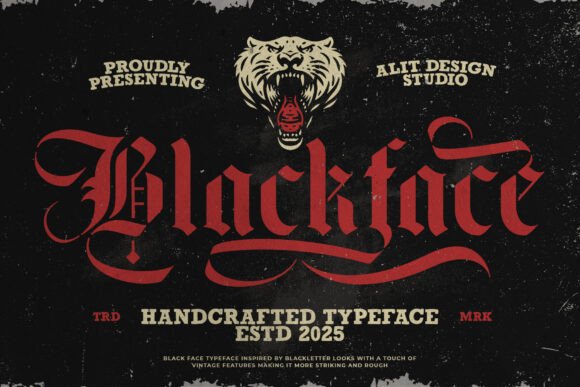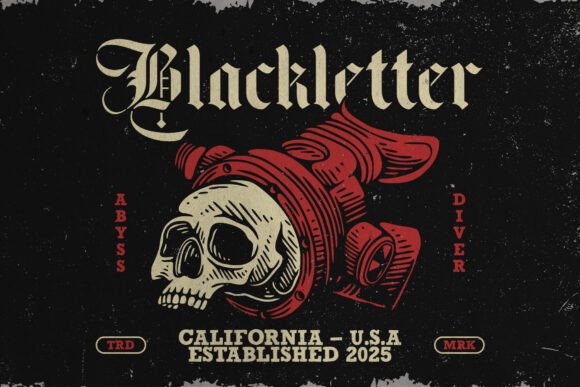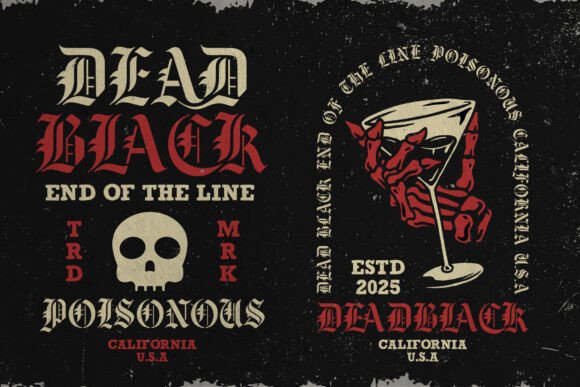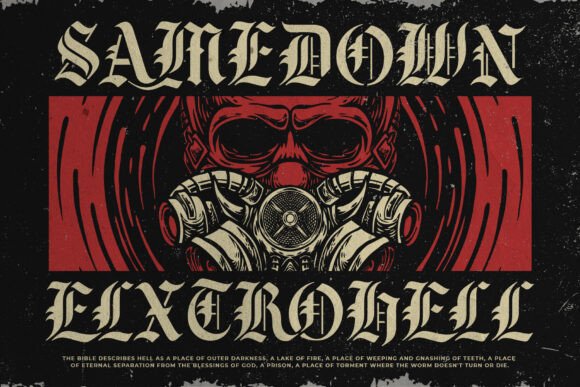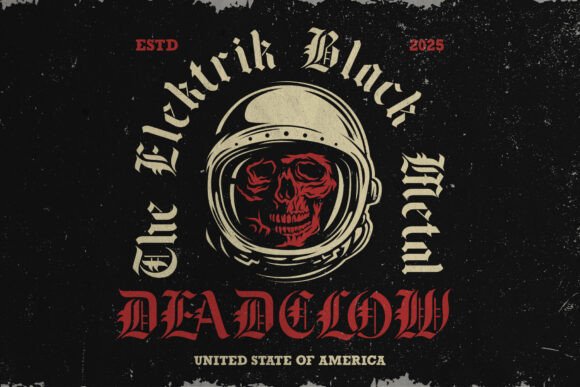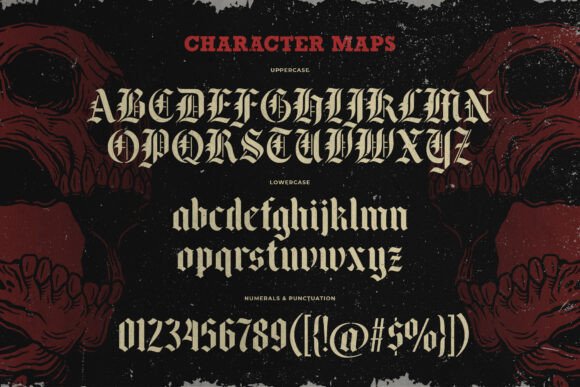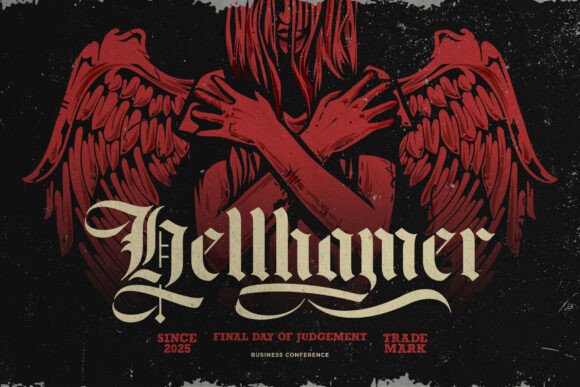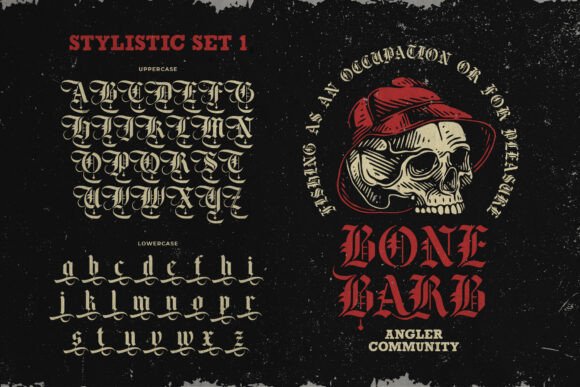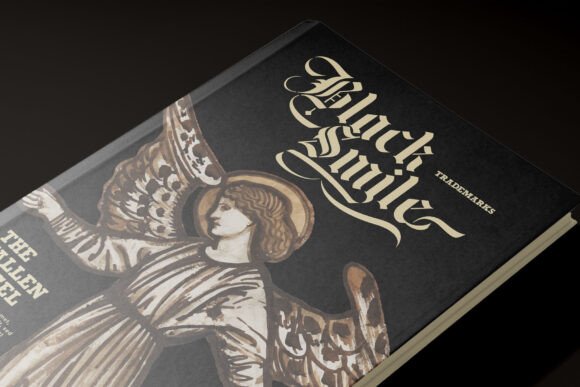
Black Face Font
Unleash the power of Black Face, a meticulously crafted blackletter stencil typeface that blends historical elegance with modern boldness. This font is designed for creators who dare to stand out—whether you’re designing tattoos, branding, posters, album covers, or apparel.